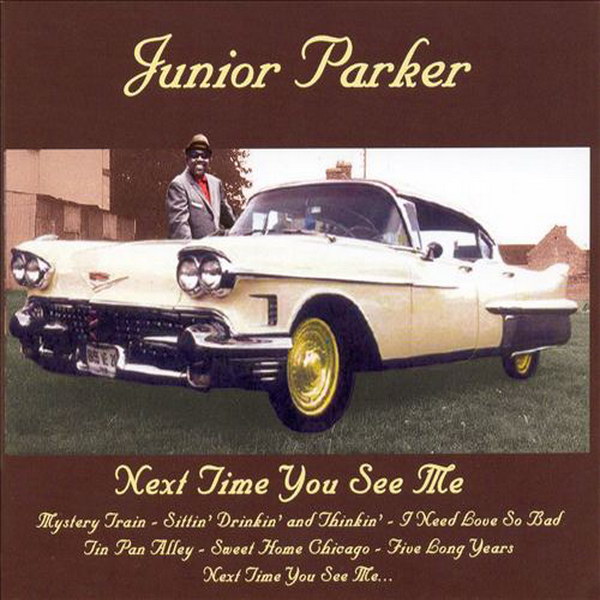
Next Time You See Me Font
BluesNext Time You See Me is an album by blues musician Junior Parker. It features a mix of blues and soul tracks, with Parker's distinctive vocals. The album includes the hit single "Next time you see me," as well as other classic blues tracks like "Mystery Train" and "Sweet Home Chicago".
The cover's font is most likely Nuptial Script. Nuptial is a casual script made specifically for wedding invitations by Intertype's design team, which was led by Edwin W. Shaar. You can view more details about it here.